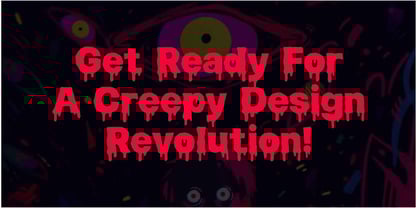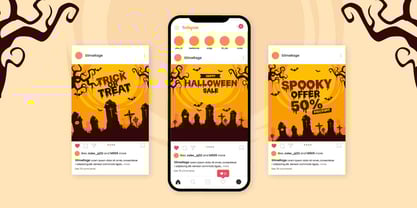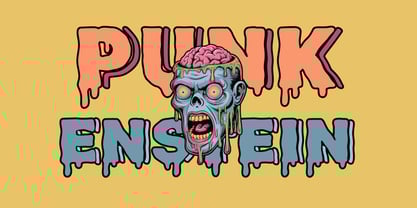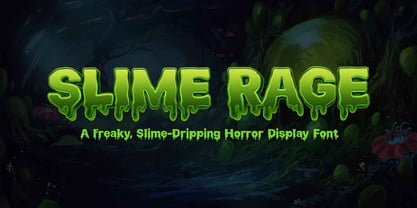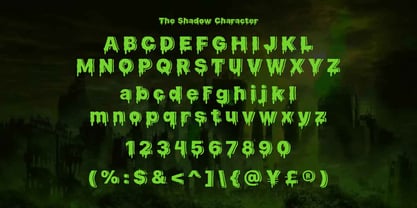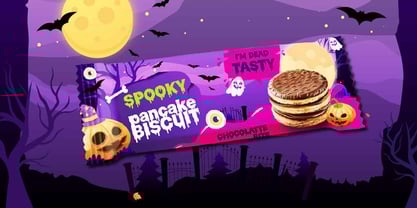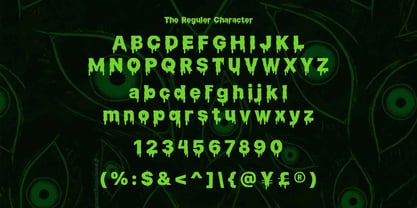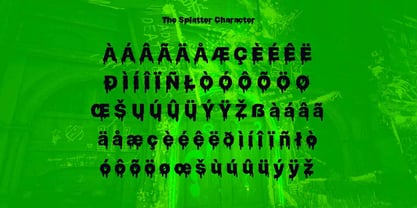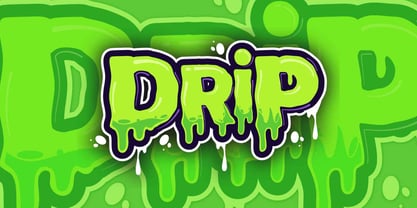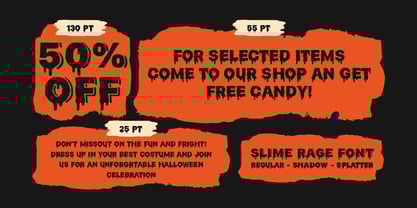
Slime Rage
Slime Rage is a bold and freaky display font dripping with spooky energy. Inspired by slimy textures and horror movie vibes, it combines organic, uneven letterforms with a gooey, melting effect. Each glyph looks like it’s oozing off the screen, making it perfect for Halloween branding, creepy games, haunted house flyers, and spooky merch.
Its handcrafted, irregular structure gives it a raw, freakish personality—ideal for designs that want to grab attention with weird, eerie, and over-the-top visuals.
Best for:
• Horror movie posters & book covers
• Halloween party invitations
• Creepy video game titles
• Slime-themed kids events (with a fun twist)
• Edgy streetwear & merch designs
Whether you’re making a freaky meme, designing dripping horror text, or crafting slime-covered branding, Slime Rage delivers instant creepy impact. It’s the perfect choice for designers, marketers, and creators who want bold, eerie, and unforgettable lettering.
• Freaky dripping style – oozing, slime-like texture for ultimate creep factor
• Handcrafted details – each letter feels alive and melting
• Bold display weight – designed for headlines, titles, and large-scale graphics
• Versatile horror vibe – works for dark, funny, or purely creepy designs
• Easy to pair – matches with clean sans-serif or retro comic fonts for contrast